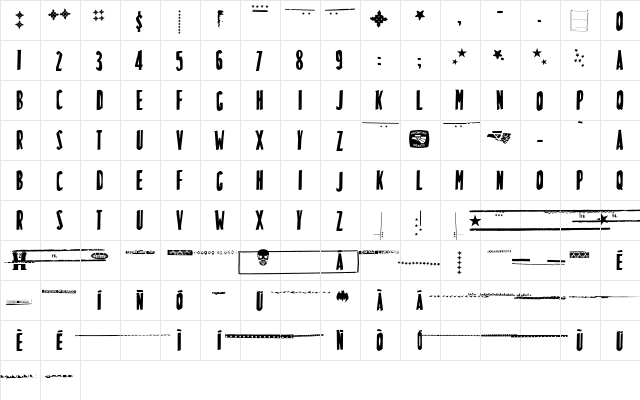
LuchitaPayol-Tecnica Regular
| Copyright | Dise\226ada en Hula+Hula por Quique Ollervides a finales del a\226o 2000 y principios del 2001. Basada en los tipos m\227viles en linoleo de la Imprenta Payol. |
Design Context for LuchitaPayol-Tecnica Typeface
LuchitaPayol-Tecnica offers clean, dependable letterforms without strong stylistic allegiance, making it a practical choice for designers who need flexibility.